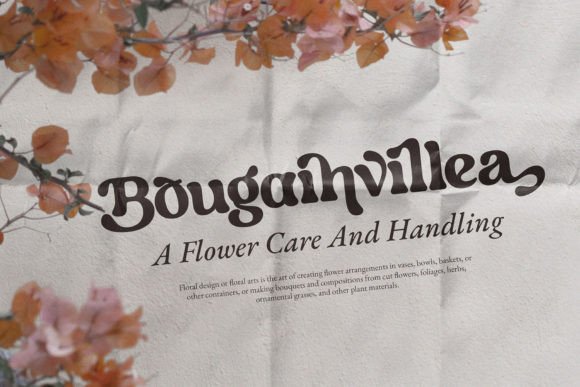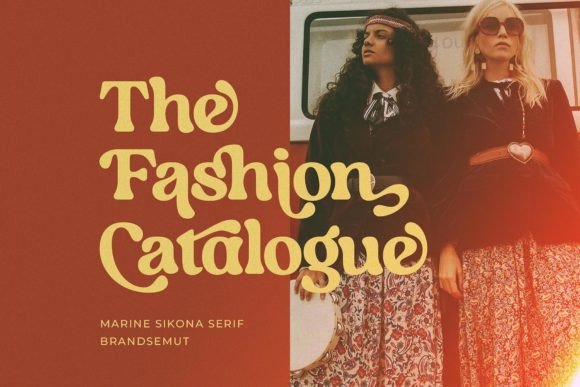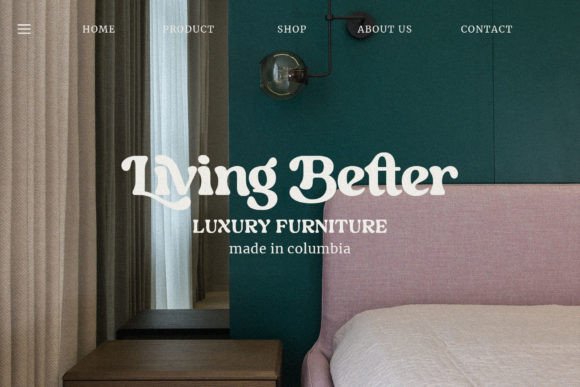
Introduction to Marine Sikona Font
As a designer, you know that the right font can make or break a project. There’s nothing quite like the feeling of stumbling upon a font that perfectly captures the essence of your creative vision. For me, that moment came when I discovered the Marine Sikona Font – a modern and chic serif font that has since become a staple in my design arsenal.
With its sleek lines and high-quality design, the Marine Sikona Font is the perfect addition to any creative project. Whether you’re working on a branding campaign, designing a website, or crafting a social media post, this font is sure to elevate your design to new heights. And the best part? It’s available for free download, making it an accessible resource for designers of all levels.
What sets the Marine Sikona Font apart from other design resources is its versatility. With a transparent background, it can be easily layered over images or used as a standalone element. Its high-quality design ensures that it will look great on any device, making it a valuable addition to any designer’s toolkit.
Key Features of Marine Sikona Font
- High-quality, hand-drawn design suitable for creative projects, including invitations, posters, and digital art.
- Transparent background, allowing for seamless integration with images and other design elements.
- Available in various font sizes, from small to large, to accommodate different design requirements.
- High-resolution design (300 DPI) ensures crisp and clear text, even when enlarged or used in large formats.
- Unique, hand-drawn style adds a touch of personality and creativity to any design project.
Honest Review: Marine Sikona Font
I recently stumbled upon the Marine Sikona Font while searching for a free download to enhance my creative project. At first glance, I was impressed by the font’s unique design and high quality. ✨
Here are some features that stood out to me:
- High-resolution font files, suitable for various design applications
- Translucent background option, allowing for easy layering and compositing
- Easy-to-use font styles, including bold and regular weights
- Only a single font style is available for download, which may limit creative possibilities
- Some users may find the font’s unique design too quirky or unconventional
⚠️ Overall, I would rate the Marine Sikona Font as a solid design resource, but it may not be suitable for every project. With its high quality and versatile design, I would recommend it for creative projects where a unique look is desired.
Some tips for getting the most out of the Marine Sikona Font include using it in creative projects that require a high-quality, modern look. Common use cases include designing logos, branding materials, and advertising campaigns.
Does the Marine Sikona Font have a transparent background?
The Marine Sikona Font is a solid font, meaning it does not have a transparent background. However, you can use a font editor or a design tool to create a transparent background effect if needed.